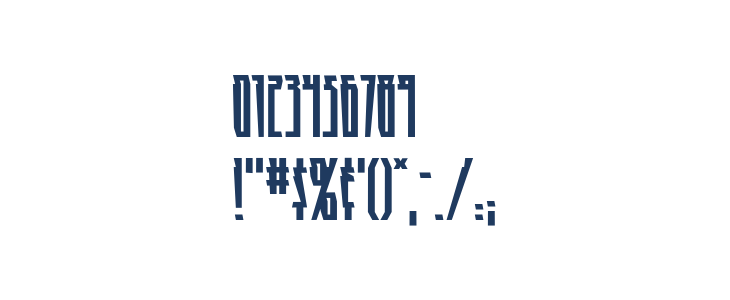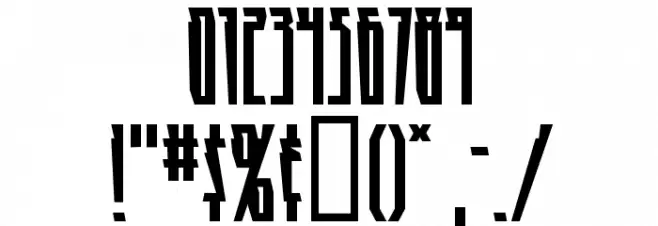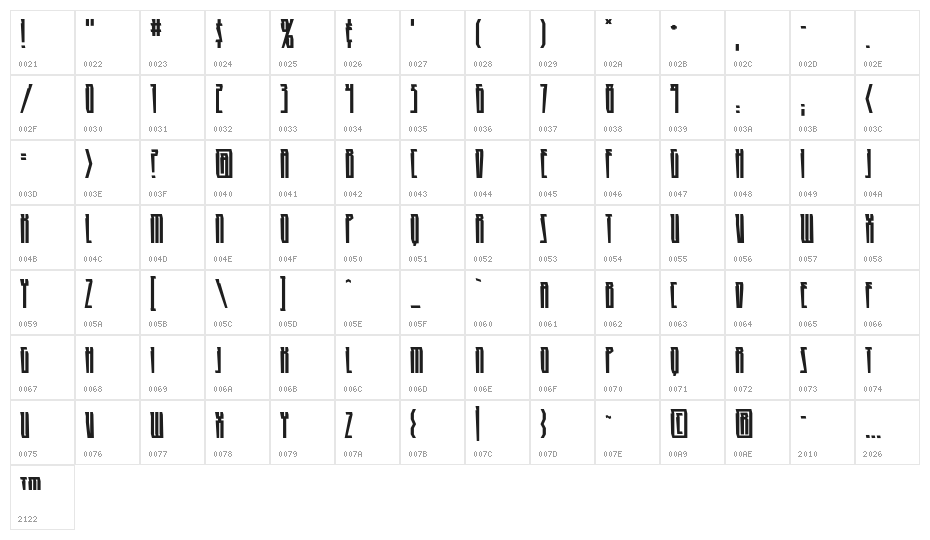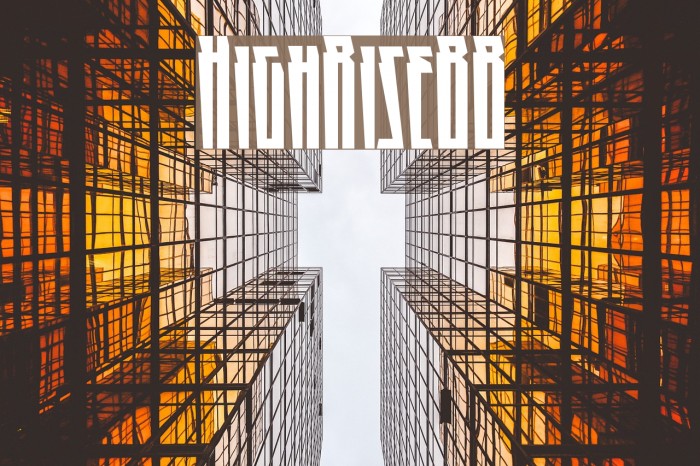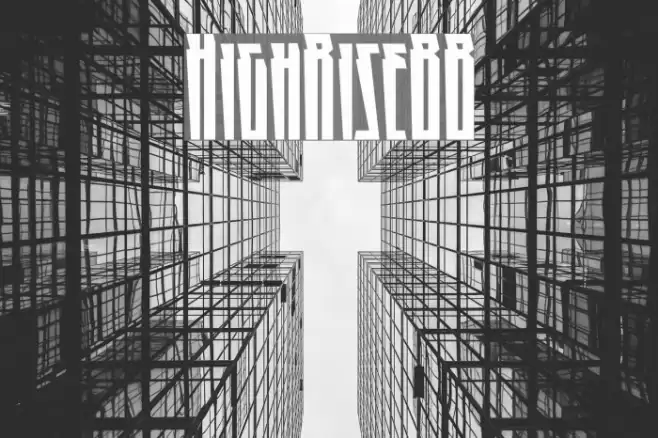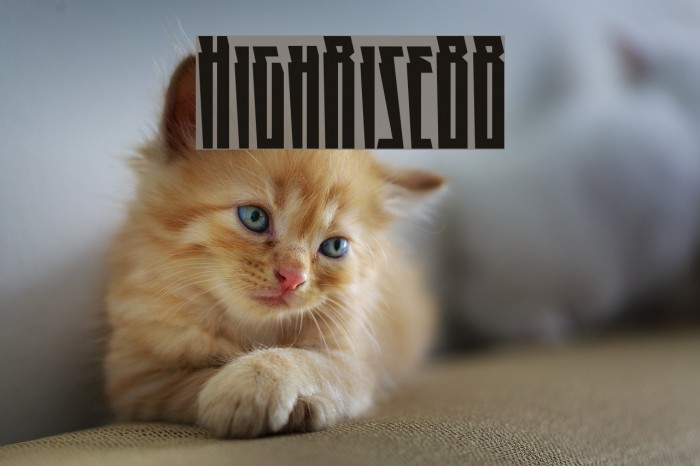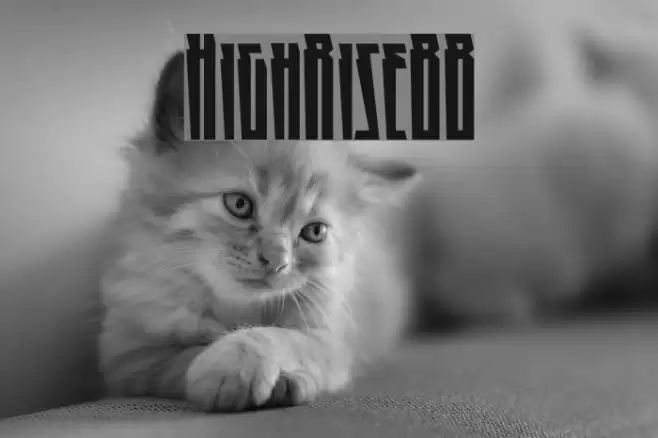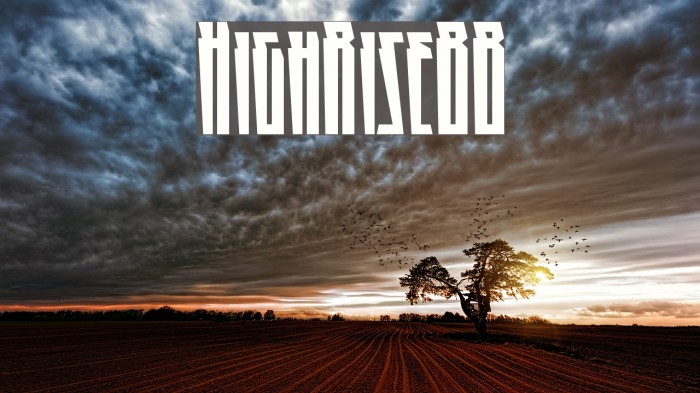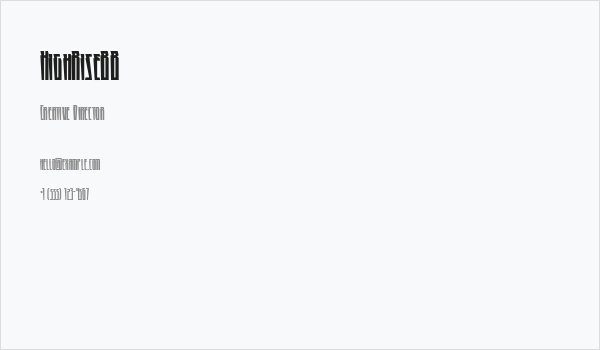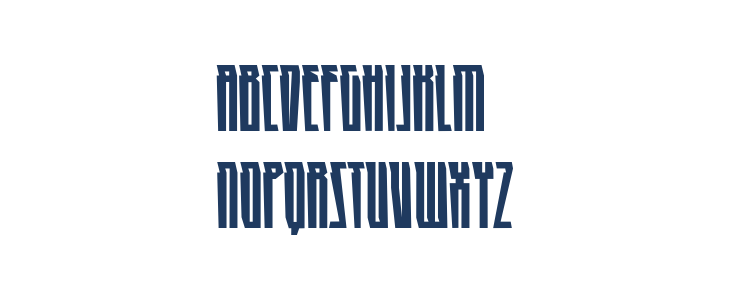
HighRiseBB Font
HighRiseBB Description
This font features a striking, elongated design with tall, narrow characters that create a sense of height and modernity. The letters are bold and geometric, with sharp angles and clean lines that give it a futuristic and architectural feel. The uppercase and lowercase letters maintain a consistent style, while the numbers and special characters complement the overall design. The font's unique structure makes it stand out, making it ideal for projects that require a bold statement.
| Proposed Projects | Ideal for posters, branding, headlines, and any design that requires a bold, modern statement. |